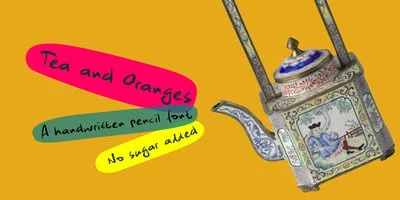
Tea And Oranges Font
Tea And Oranges Font is perfect for artisan tea shops, cozy café branding, citrus orchard marketing, afternoon tea services, mindful wellness centers, bohemian lifestyle brands, poetic publications, contemplative retreat materials, organic fruit packaging, and soothing applications that celebrate the peaceful harmony of simple pleasures and mindful living.
What makes Tea And Oranges Font truly exciting is its gentle capture of contemplative serenity and bohemian warmth that evokes the peaceful ritual of afternoon tea and the sunny disposition of fresh citrus in perfect harmony. This exceptional typeface embodies the essence of mindful simplicity with its flowing letterforms and organic character that convey both artistic sensibility and natural comfort. The font's bohemian personality and contemplative design make it perfect for brands seeking to communicate mindful living, artistic appreciation, and the transformative power of finding beauty and peace in life's simple, everyday moments.
The Tea And Oranges Font family includes multiple weights and styles: Light, Regular, Medium, Bold, and Organic variations designed for maximum contemplative impact. Each family member maintains the distinctive bohemian character while offering flexibility for diverse mindful applications and artistic branding systems. The comprehensive character set supports contemplative typography needs and organic design elements, making it suitable for international mindful communications.
When you choose Tea And Oranges Font, you're selecting a typography meditation that delivers authentic bohemian credibility and contemplative elegance to every mindful project. This serene typeface excels in applications where artistic sensibility and peaceful contemplation are essential, delivering exceptional bohemian appeal while maintaining organic authenticity. Whether you're designing wellness brands, artistic campaigns, contemplative materials, or mindful marketing content, this font provides the bohemian sophistication and contemplative beauty that resonates with artistic souls who appreciate mindful living, simple pleasures, and the profound peace found in quiet moments of reflection and natural harmony.